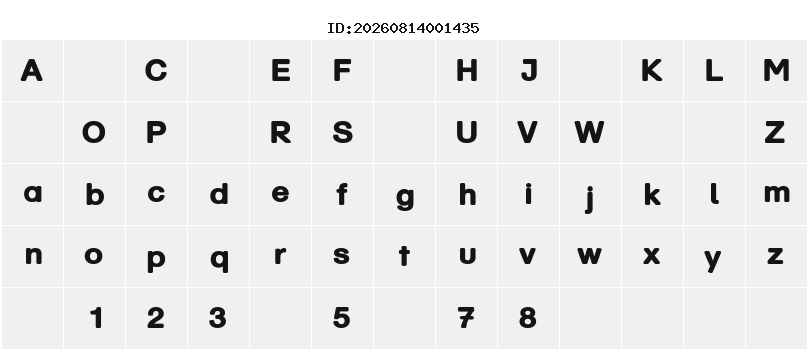
Südfett Preview
About Südfett.ttf
Südfett.ttf is a modern, elegant sans-serif font designed for ultimate readability and visual harmony. Perfect for branding, headlines, web design, and print materials.